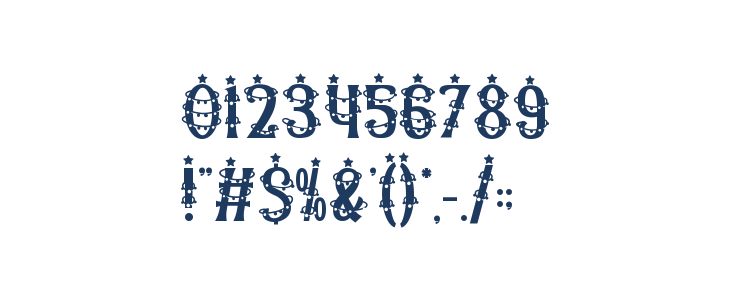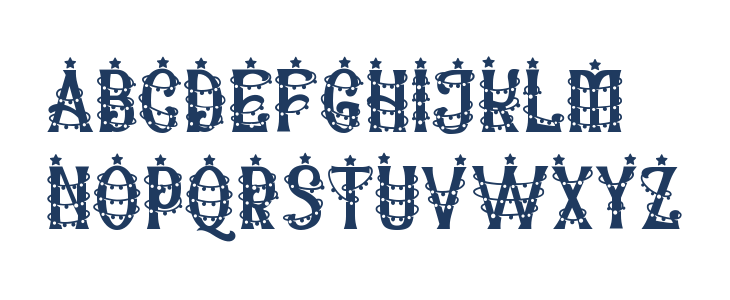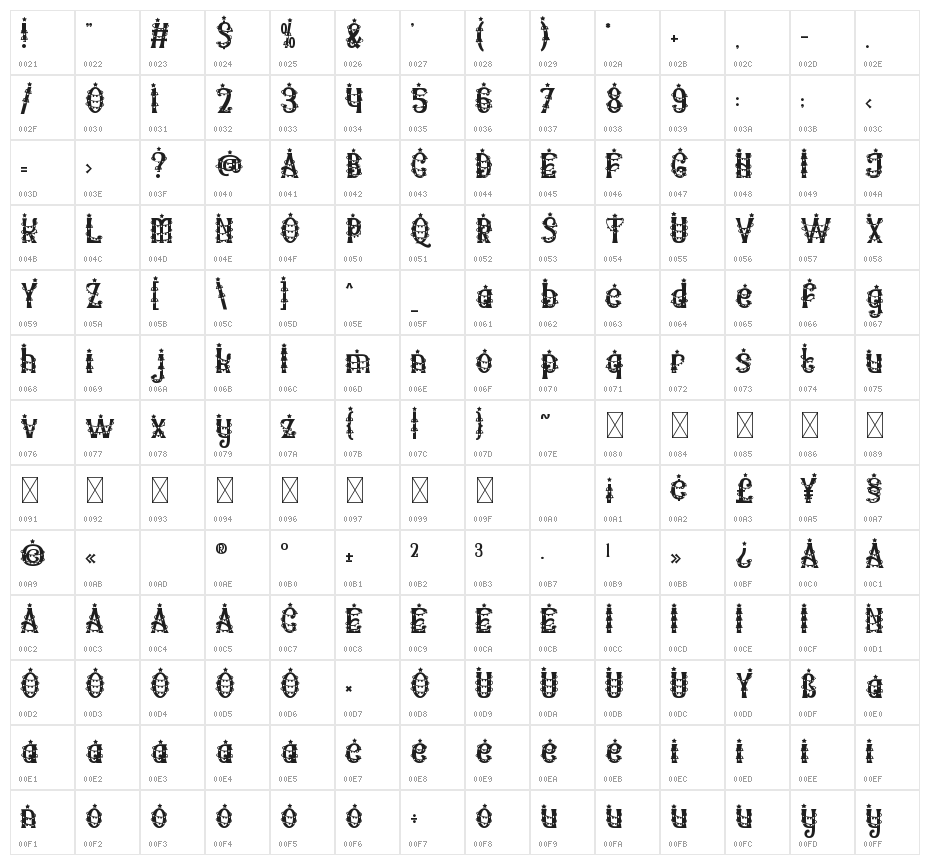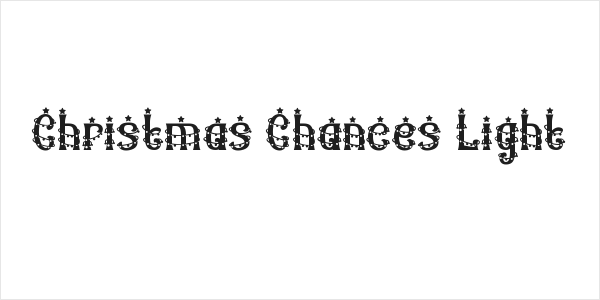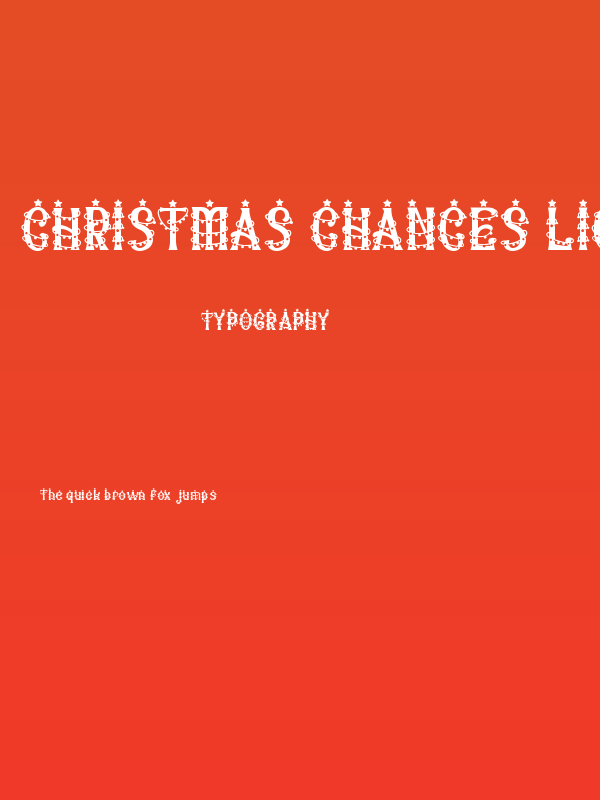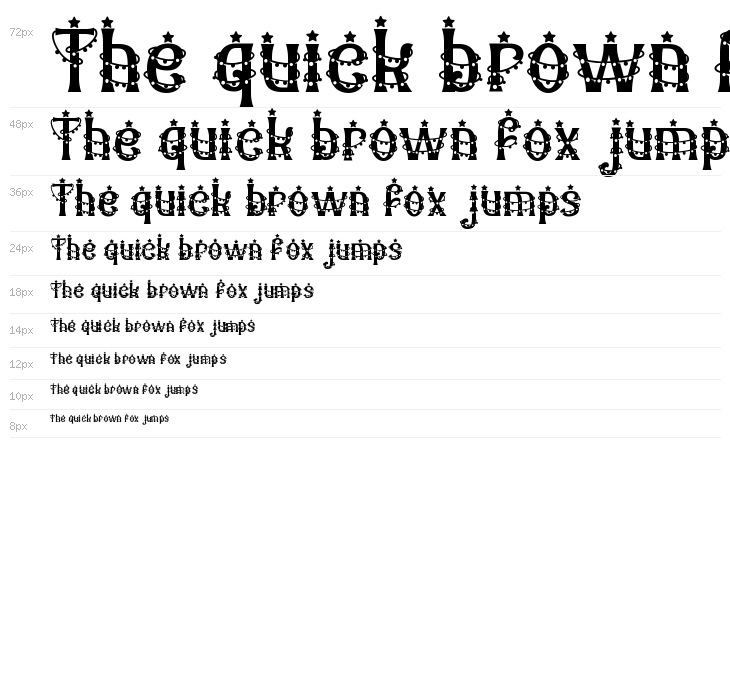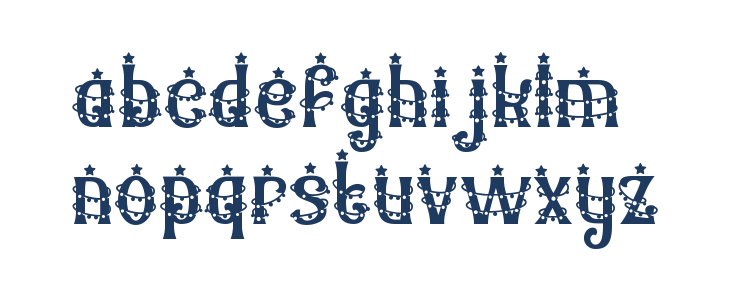
Christmas Chances Light Font
Christmas Chances Light Description
A playful decorative font featuring bold, blocky letterforms adorned with star shapes and string lights, evoking a festive holiday atmosphere. The characters have a whimsical, hand-crafted appearance with consistent ornamentation throughout.
| Overall Style | Decorative, Festive, Playful |
| Use Case | Headlines, Posters, Greeting cards, Event signage |
| Proposed Projects | Holiday cards, Christmas party invitations, festive banners, seasonal posters, event flyers, childrenΓ’β¬β’s crafts. |